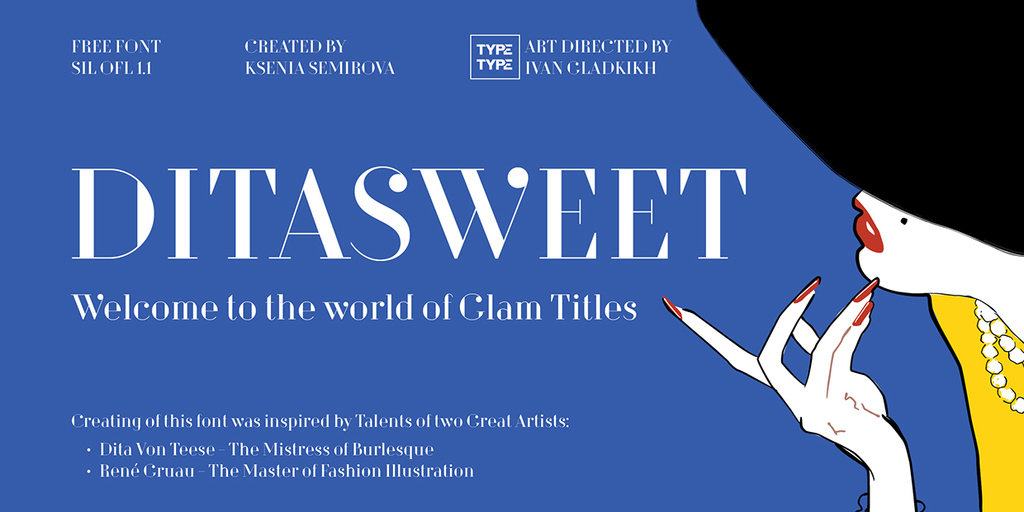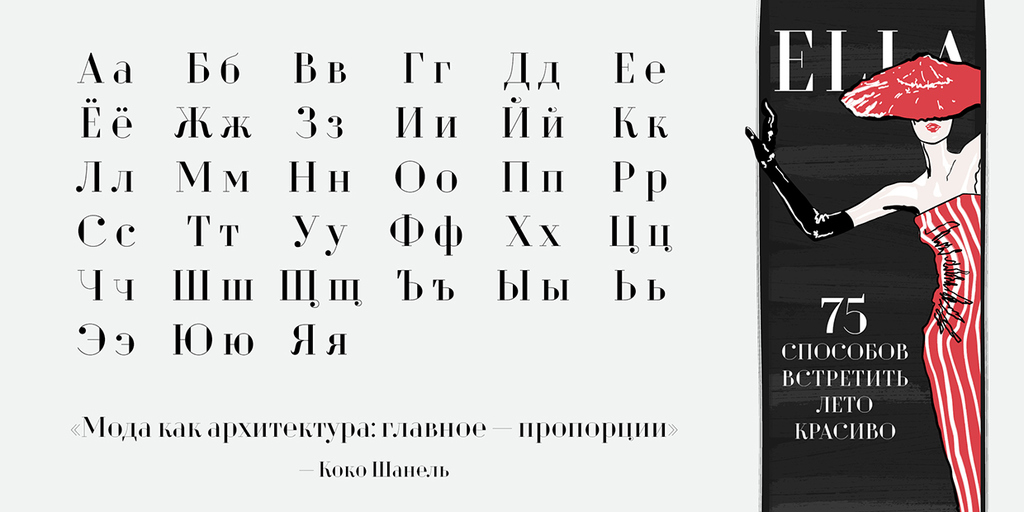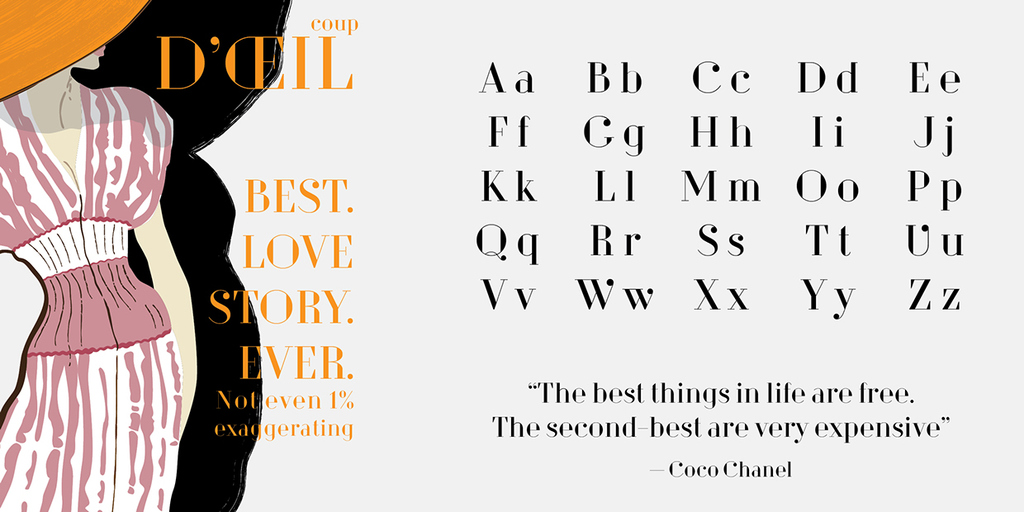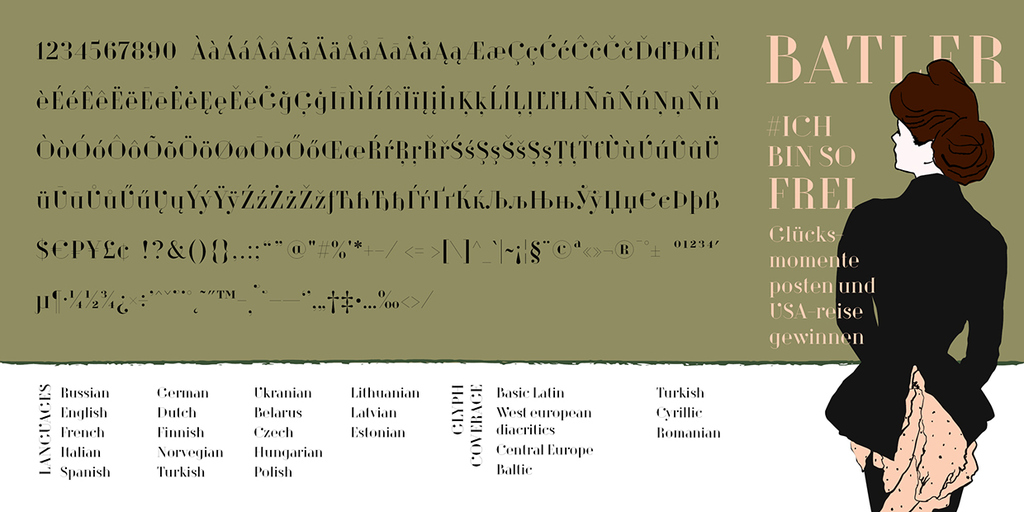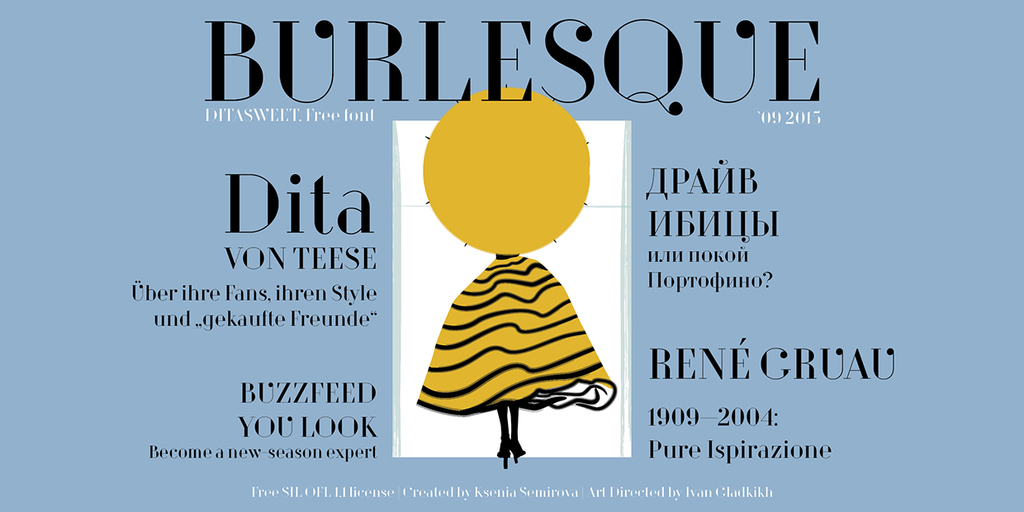
Dita Sweet Font
Dita Sweet Font Made by Ksenia Semirova
I always wanted to create my own font which could be utilized for projects such as glamorous posters or fancy magazines’ titles.
So now, let me introduce DitaSweet — my first font project. It wasn’t hard, but it was a big chalenge! That’s why I’d like to say Big thanks to my Art director Ivan Gladkikh, who helped me to polish and to release this project.
Ditasweet contains more than 400 symbols including numbers, glyphs, ligatures and accents. It might be used in any European language and also in Russian, of course.